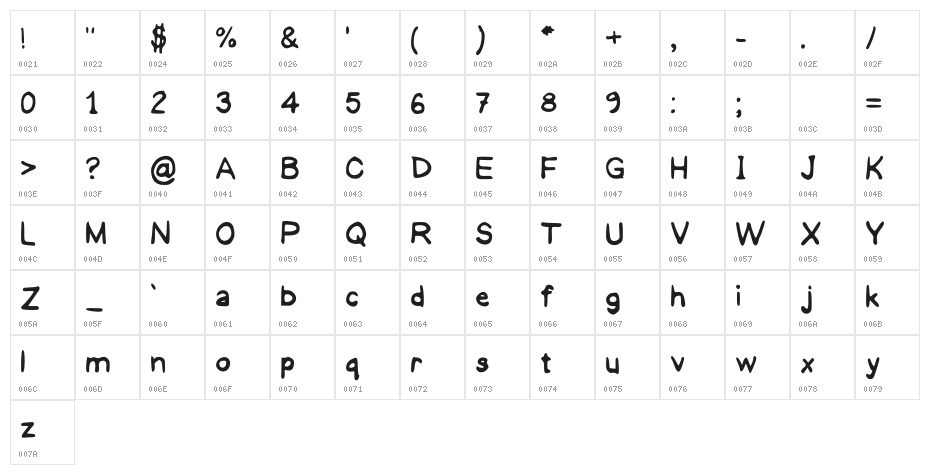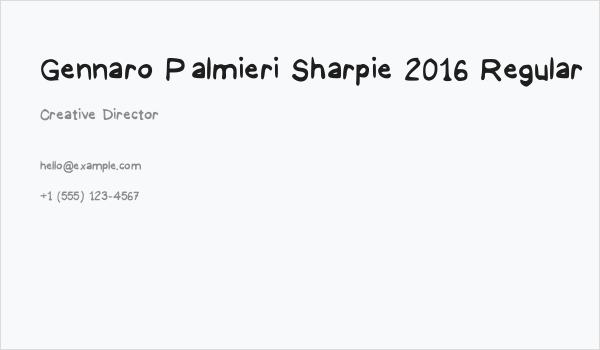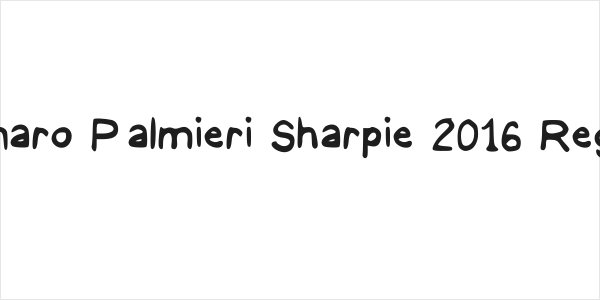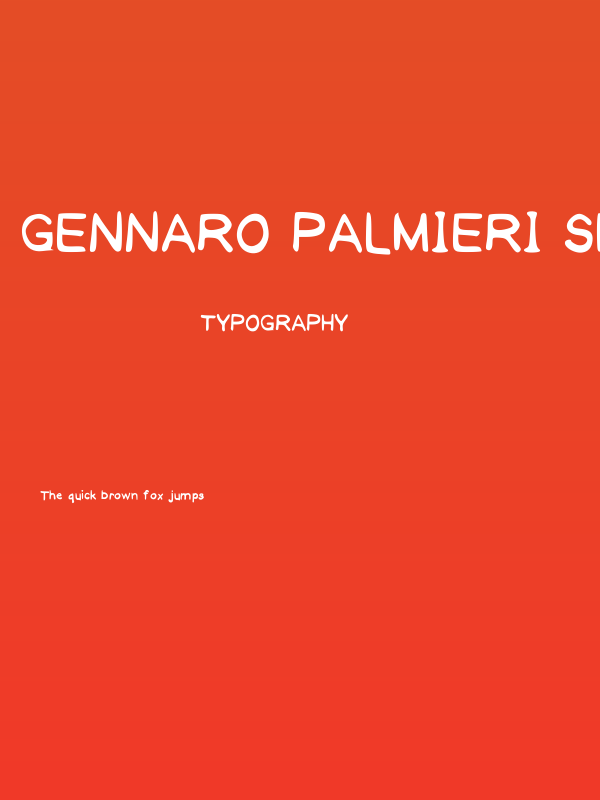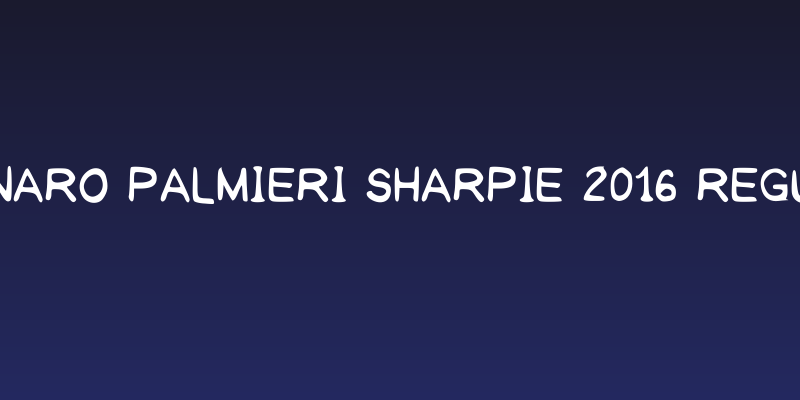
Gennaro Palmieri Sharpie 2016 Regular Font
Gennaro Palmieri Sharpie 2016 Regular Description
This font features a playful and casual handwritten style, reminiscent of writing with a marker or sharpie. The characters are bold and rounded, with a slightly uneven baseline that adds to its informal charm. The uppercase and lowercase letters maintain a consistent style, with rounded edges and a friendly appearance. Numbers and special characters are designed to match the overall aesthetic, making them suitable for a variety of creative projects. The font's unique personality makes it ideal for designs that require a personal touch.
Gennaro Palmieri
Overall StyleCasual, Playful
Use CaseHeadlines, Informal text, Creative projects
Proposed ProjectsIdeal for greeting cards, children's books, posters, and casual branding projects.
AuthorGennaro Palmieri